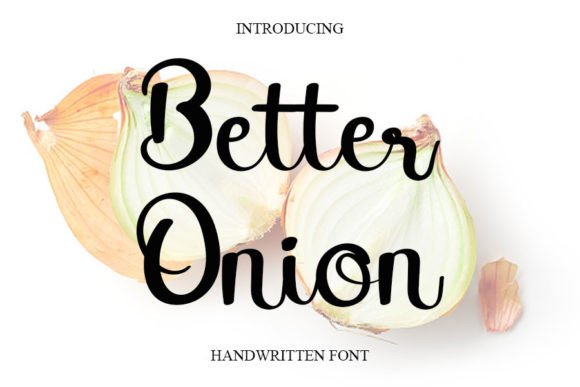
Better Onion Font: The Perfect Addition to Your Creative Projects
Are you a designer, crafter, or DIY enthusiast looking for a font that can add a personal touch to your creative projects? Look no further than the Better Onion Font! This cute and casual handwritten font is designed to bring a friendly feel to any design, making it perfect for a wide range of applications.
What is Better Onion Font?
Better Onion is a carefully crafted handwritten font that exudes warmth and approachability. Its unique and playful style makes it an excellent choice for designers and crafters who want to add a personal touch to their work. Whether you’re creating social media graphics, crafting DIY projects, or designing calligraphy scripts, Better Onion Font is the perfect choice.
Key Features of Better Onion Font
- Cute and Casual Style: Better Onion Font has a playful and friendly feel that’s perfect for designs that require a personal touch.
- Handwritten with Love: Each letter is carefully crafted to ensure a unique and authentic look that’s perfect for handmade projects.
- Versatile: Better Onion Font can be used for a wide range of applications, from Instagram graphics to calligraphy scripts and DIY projects.
- Easily Readable: The font is designed to be easily readable, making it perfect for body text and captions.
Perfect for Instagram and Social Media Graphics
In today’s digital age, having a strong online presence is crucial for designers, crafters, and DIY enthusiasts. Better Onion Font is the perfect choice for creating engaging social media graphics that will help you stand out from the crowd. Its friendly and approachable style makes it ideal for Instagram posts, Facebook graphics, and other social media applications.
Use Better Onion Font for Calligraphy Scripts and DIY Projects
If you’re a fan of calligraphy and handmade projects, Better Onion Font is a dream come true. Its unique and playful style makes it perfect for creating beautiful calligraphy scripts, handmade cards, and other DIY projects. Whether you’re a seasoned crafter or just starting out, Better Onion Font is the perfect addition to your toolkit.
Why Choose Better Onion Font?
With so many fonts available, why choose Better Onion Font? Here are just a few reasons why designers and crafters love this font:
- Unique Style: Better Onion Font has a one-of-a-kind style that’s sure to make your designs stand out.
- Easily Customizable: The font is easily customizable, making it perfect for designers who want to add their own personal touch.
- High-Quality: Better Onion Font is a high-quality font that’s designed to deliver exceptional results.
Get Creative with Better Onion Font
Ready to take your designs to the next level with Better Onion Font? Here are some creative ways to use this amazing font:
- Create Engaging Social Media Graphics: Use Better Onion Font to create eye-catching social media graphics that will help you stand out from the crowd.
- Make Beautiful Calligraphy Scripts: Add a personal touch to your calligraphy scripts with Better Onion Font.
- Design Handmade Cards and DIY Projects: Use Better Onion Font to create beautiful handmade cards, gift tags, and other DIY projects.
Better Onion Font is a versatile and charming handwritten font that’s perfect for designers, crafters, and DIY enthusiasts. Its unique and playful style makes it ideal for a wide range of applications, from social media graphics to calligraphy scripts and DIY projects. With its easily readable style and high-quality design, Better Onion Font is the perfect addition to your creative toolkit. So why wait? Get creative with Better Onion Font today and take your designs to the next level!